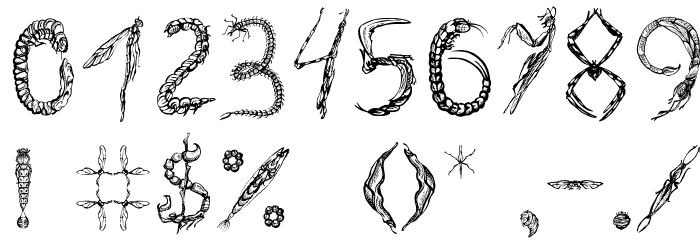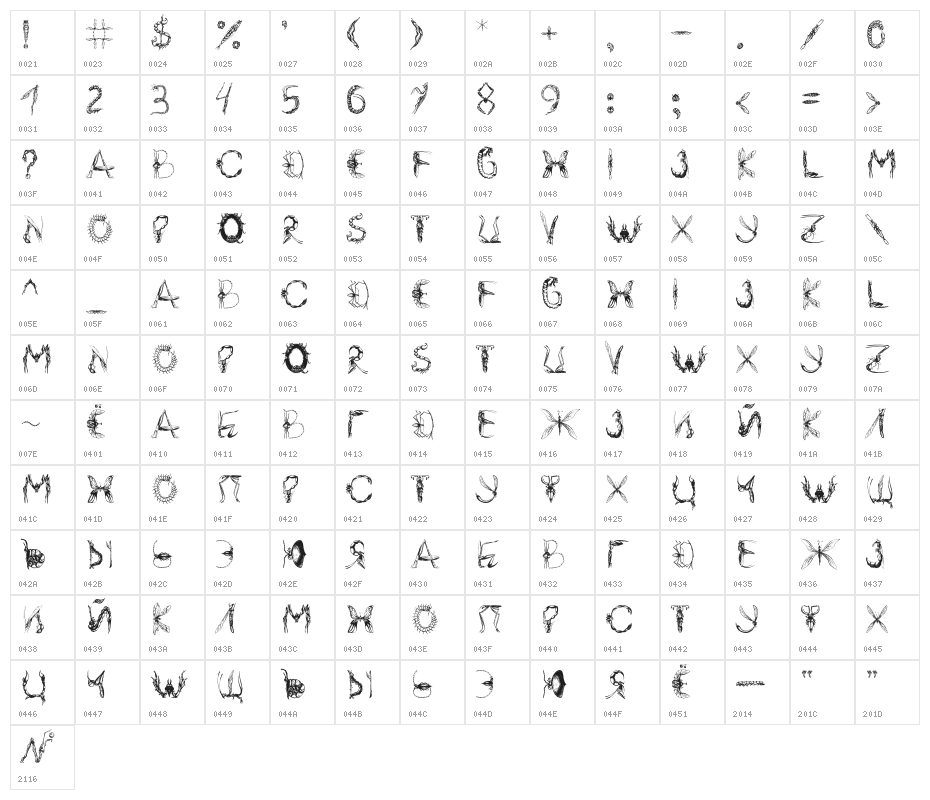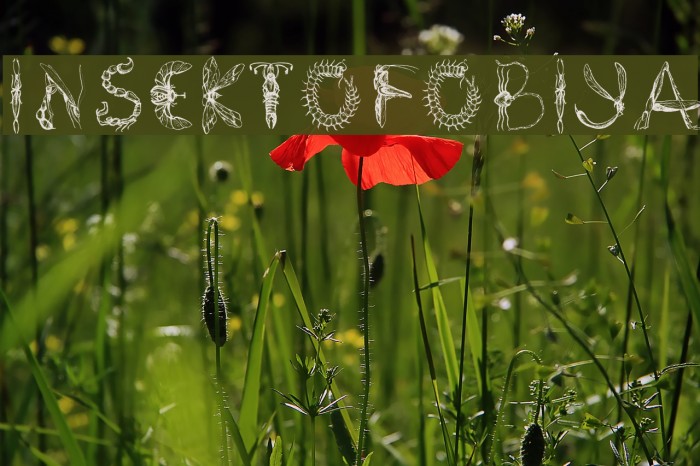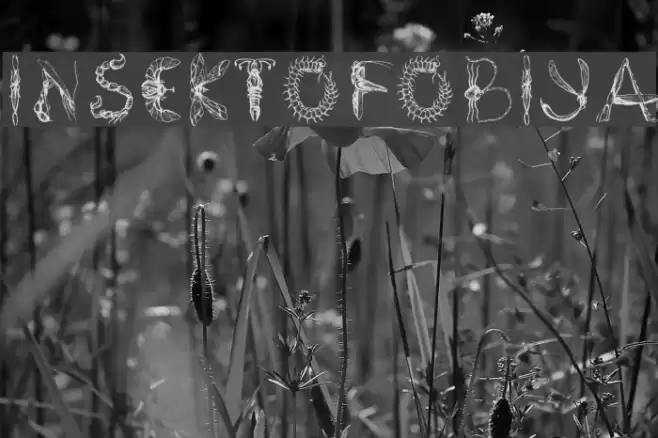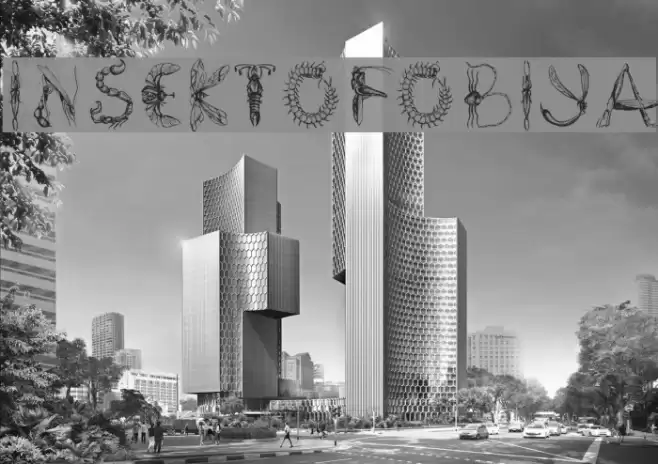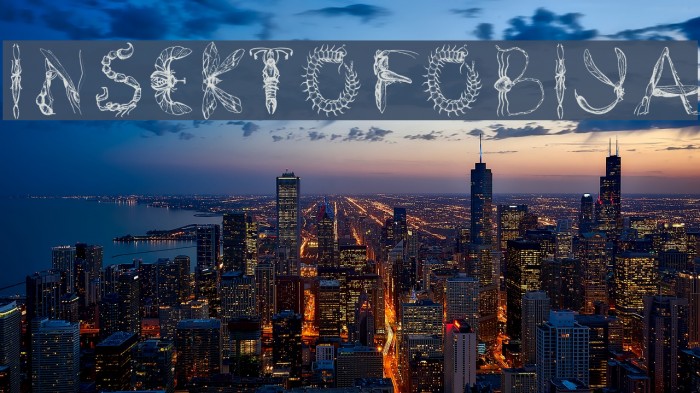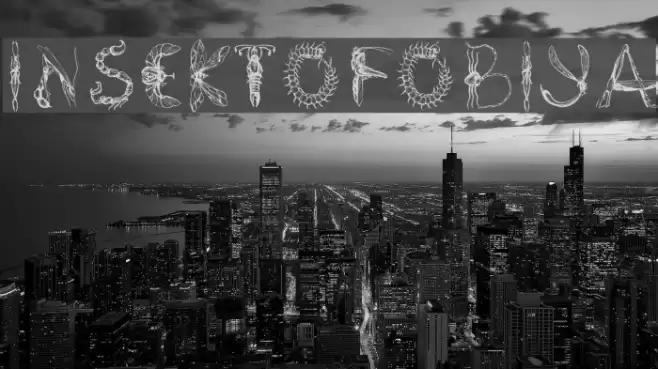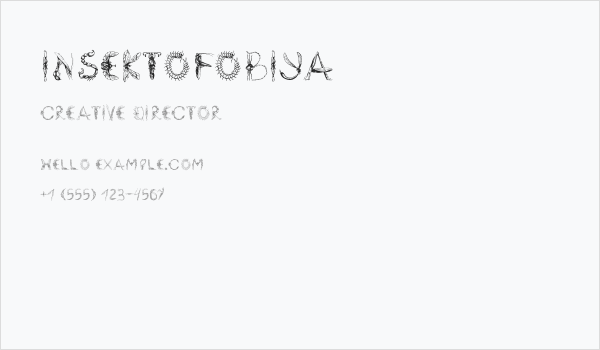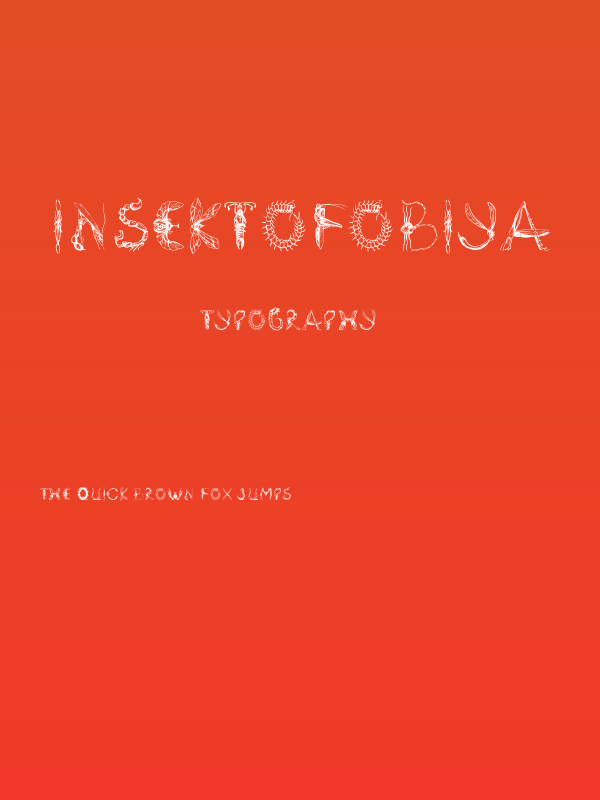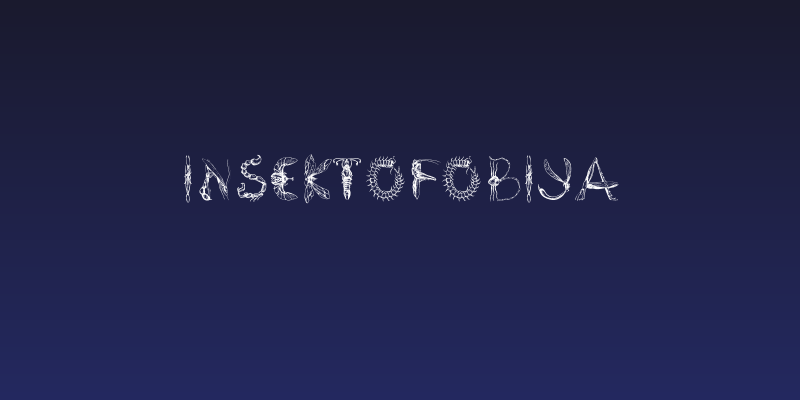
Insektofobiya Font
Insektofobiya Description
This font is a highly creative and decorative typeface that incorporates intricate insect and arthropod motifs into each character. The letters and numbers are designed with detailed illustrations of various insects, creating a unique and visually striking appearance. The font's elaborate design makes it ideal for projects that require a bold and artistic touch. Each character is distinct, with elements like wings, legs, and antennae seamlessly integrated into the letterforms, offering a whimsical yet sophisticated aesthetic. The font's complexity and detail make it a standout choice for thematic designs, particularly those related to nature, entomology, or fantasy.
| Use Case | Logos, Posters, Creative Branding |
| Proposed Projects | Ideal for nature-themed posters, fantasy book covers, entomology presentations, and creative branding projects. |